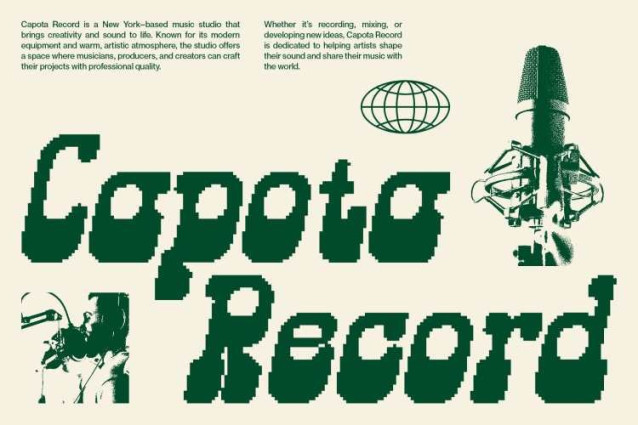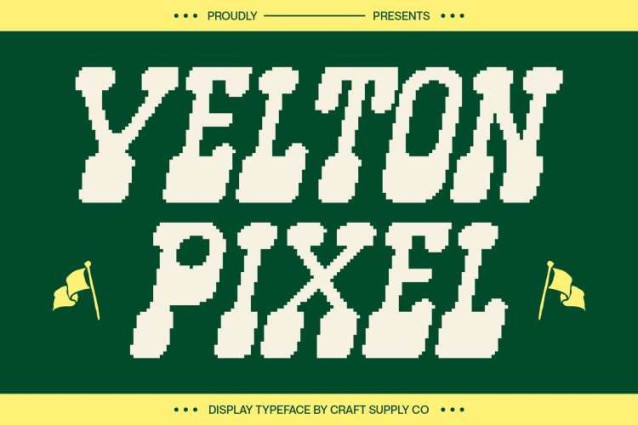
Velton Pixel Font
Velton Pixel Font – This font blends the raw charm of western-style serif design with a futuristic pixel aesthetic. Its reverse contrast shapes and ornamental curves echo the personality of classic saloon posters, while the pixelated structure adds a distinctly modern edge. The result is a font that feels historic yet entirely fresh.
Reverse Contrast for Striking Visual Appeal
The use of reverse contrast creates a unique rhythm that immediately draws the eye. Unlike conventional serif structures, flips weight and balance, producing bold forms that stand out in any layout. This daring approach makes it particularly effective for strong headlines, impactful posters, and branding that demands attention.
Pixel Detailing with Rustic Character
Every letterform carries pixel-style detailing that enhances its personality while evoking nostalgia for vintage arcade graphics. The rustic bold structure combines effortlessly with the pixel edges, creating a distinctive look that works equally well in retro-inspired designs and modern digital projects. This duality is what gives font its timeless creative value.
Perfect for Posters, Games, and Branding
This is designed to thrive in contexts where expression matters most. From gaming visuals to western-themed branding, or even editorial layouts, it balances retro warmth with technological precision. If you’re looking to inject energy, style, and personality into your designs, delivers with confidence.